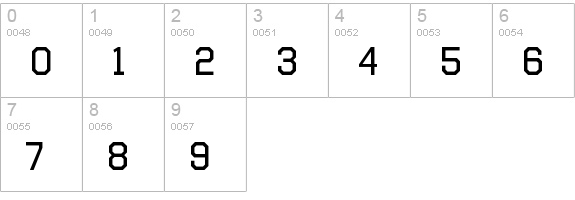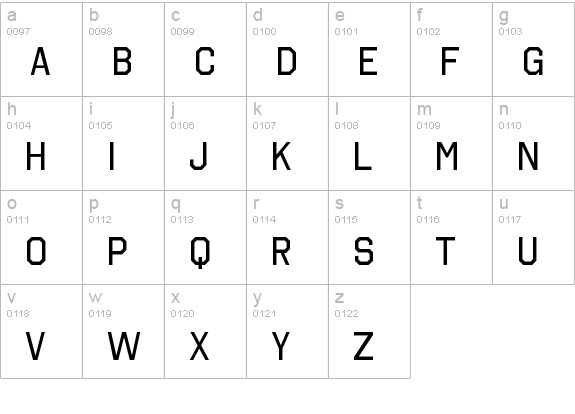
Octin College Rg Font Details
Octin College Rg is a modern and sophisticated font that exudes elegance and professionalism. Its clean lines and bold presence make it perfect for a wide range of design projects, from branding to editorial design. The sharp edges and strong vertical strokes give Octin College Rg a commanding presence on the page, making it ideal for conveying a sense of authority and strength. What sets Octin College Rg apart is that it is not only a high-quality font, but it is also completely free to download. That's right, you can access this premium font at no cost from FontsMarket.com. Whether you're a seasoned designer looking to add a new font to your collection or a student working on a project, Octin College Rg is a versatile and stylish typeface that will elevate your designs to the next level. Don't miss out on the opportunity to enhance your projects with the sleek and modern aesthetic of Octin College Rg. Download it for free today and see the difference it can make in your designs!